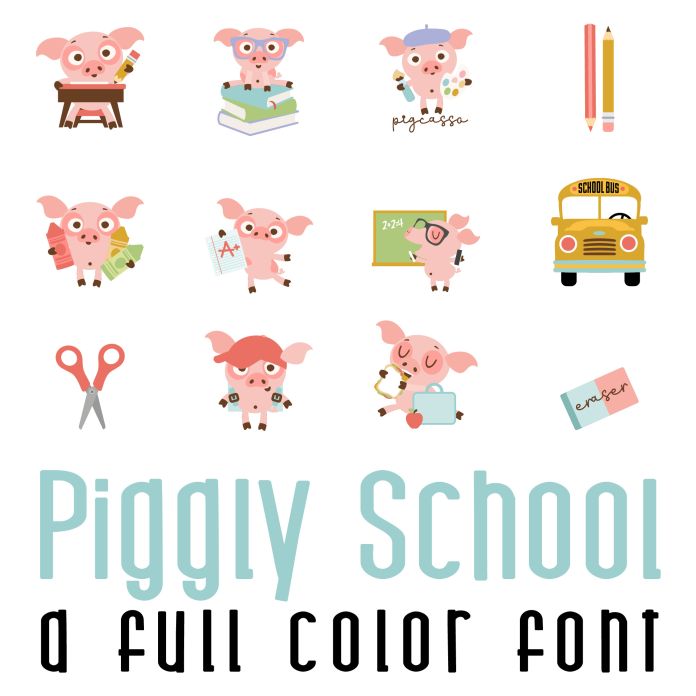
This fun full color font features 26 cute little pigs ready for school and perfect for cards, crafts, gifts, classrooms, scrap booking, planner stickers and more!